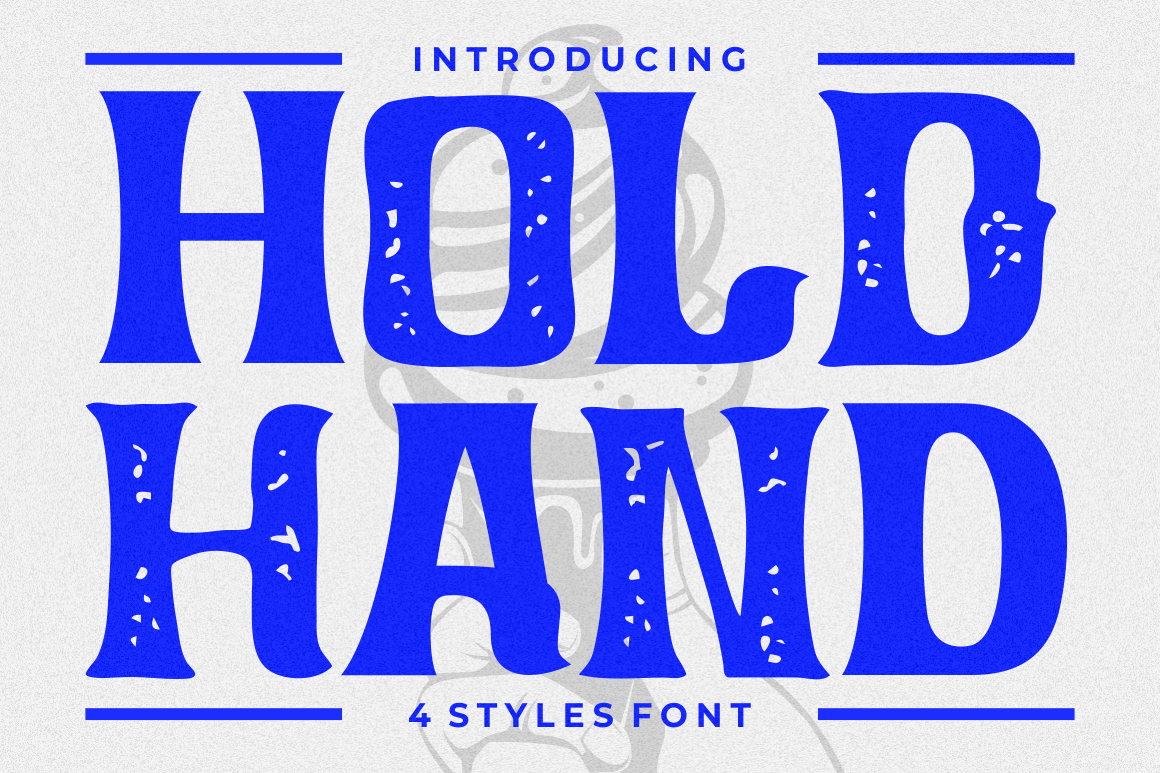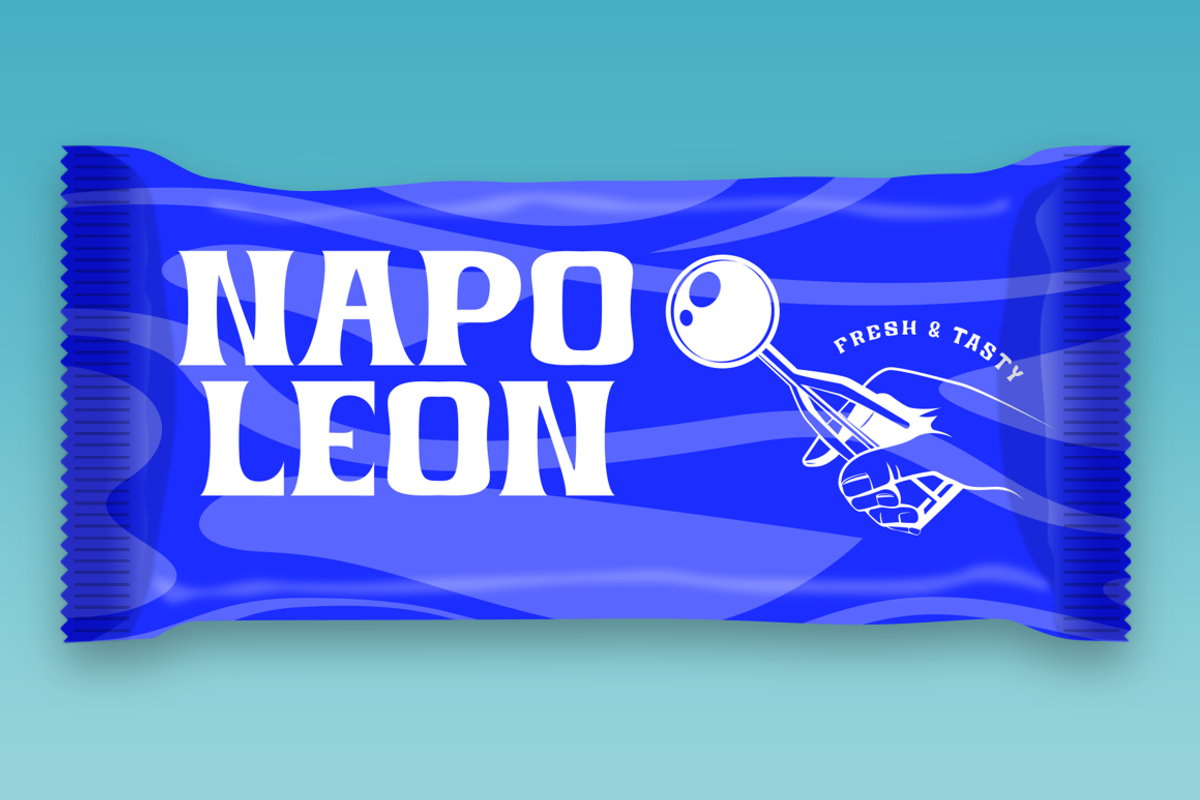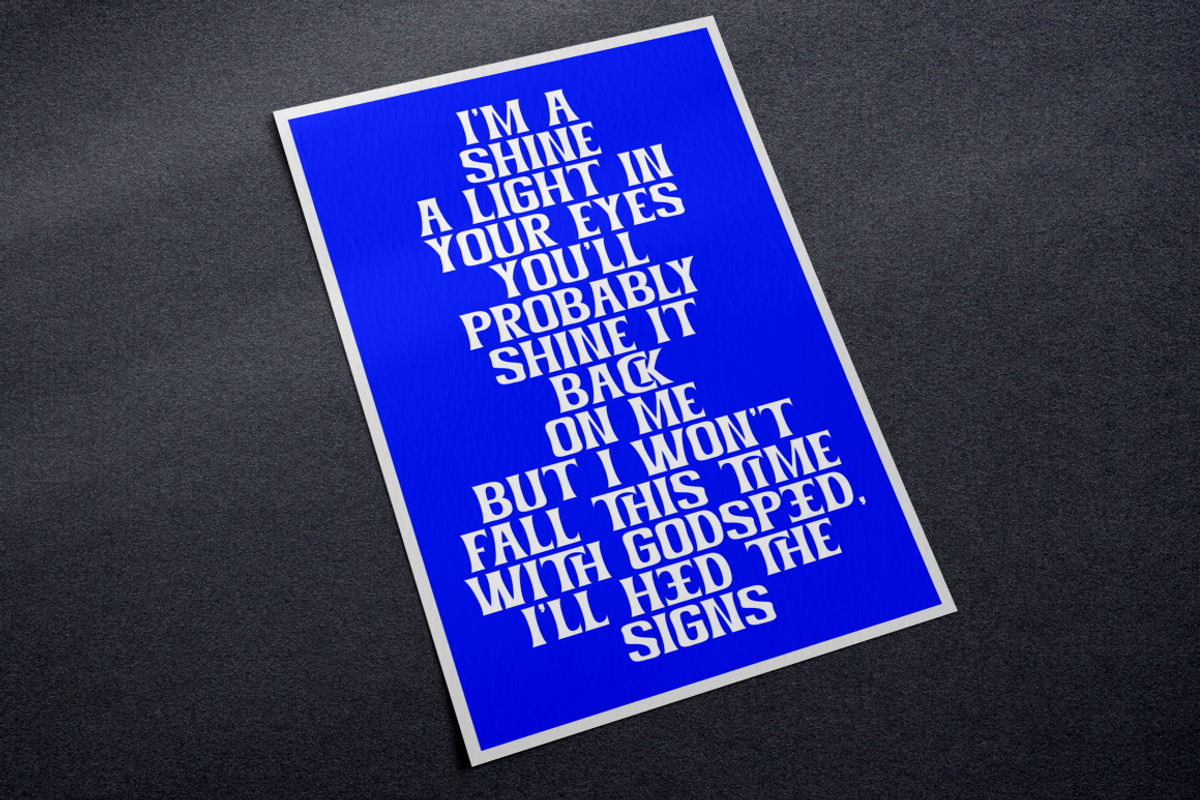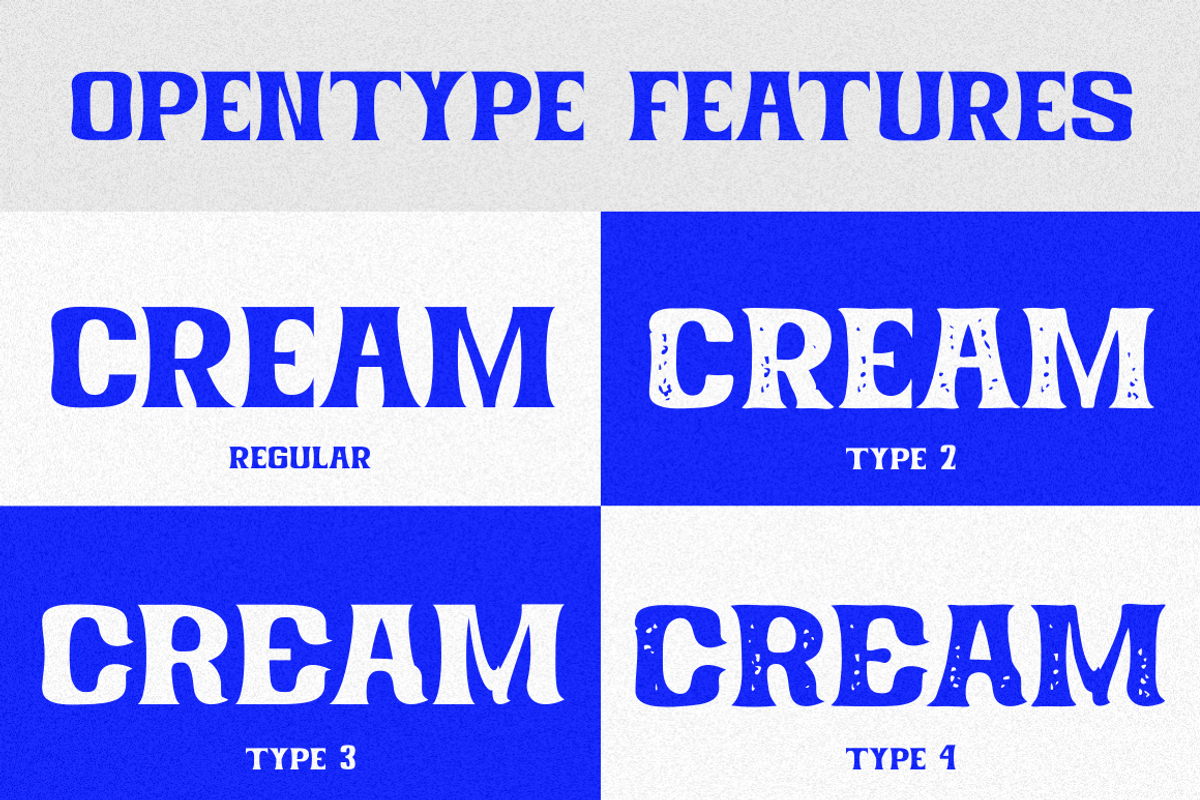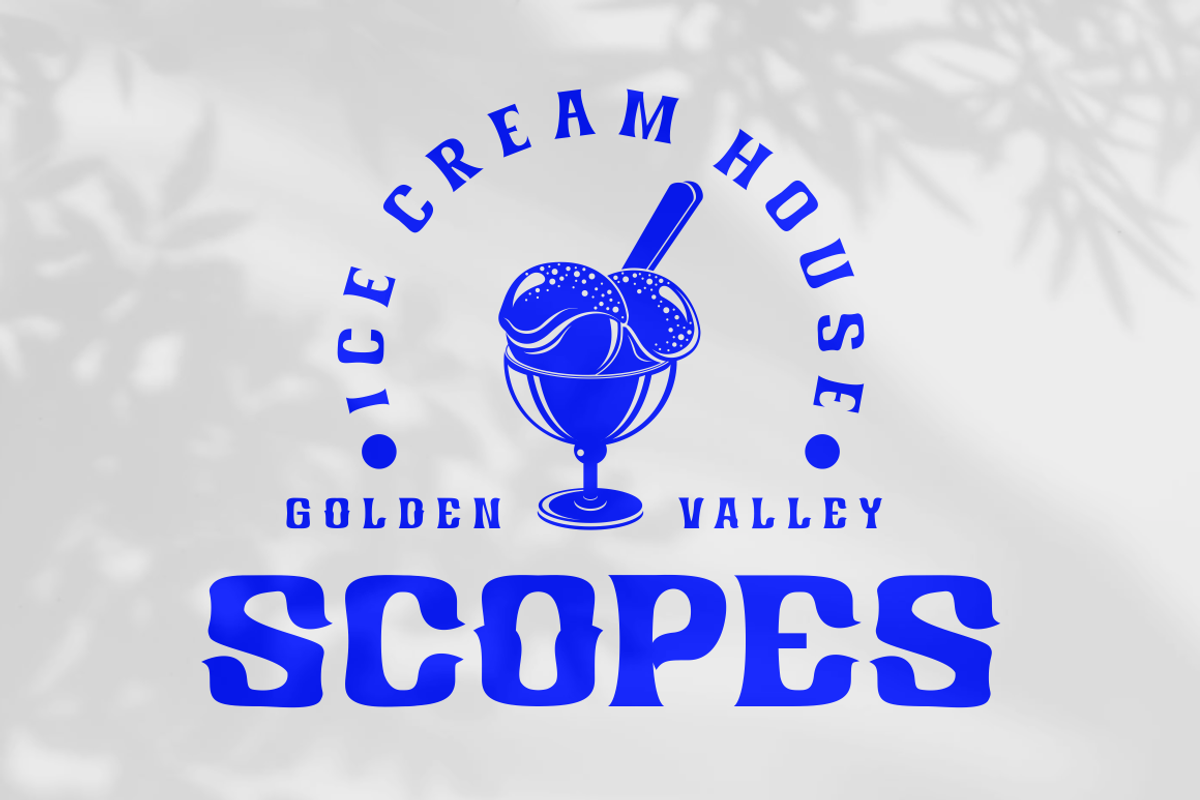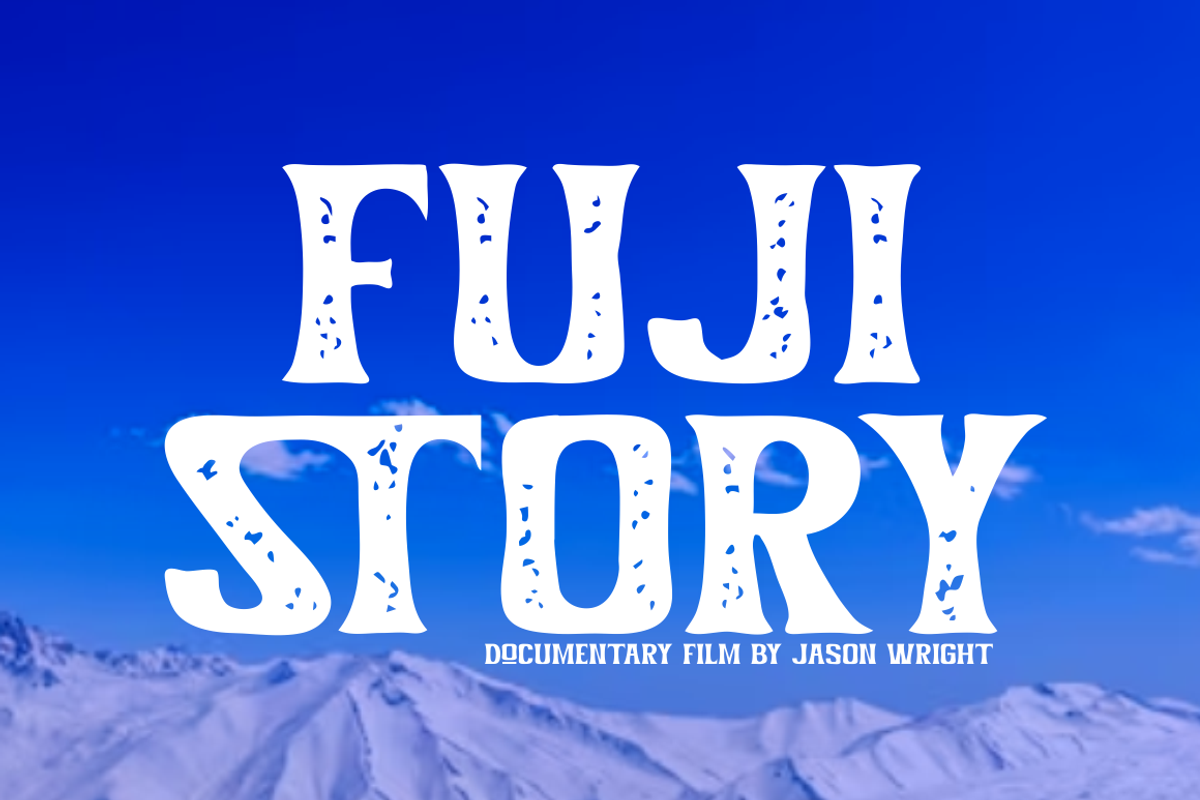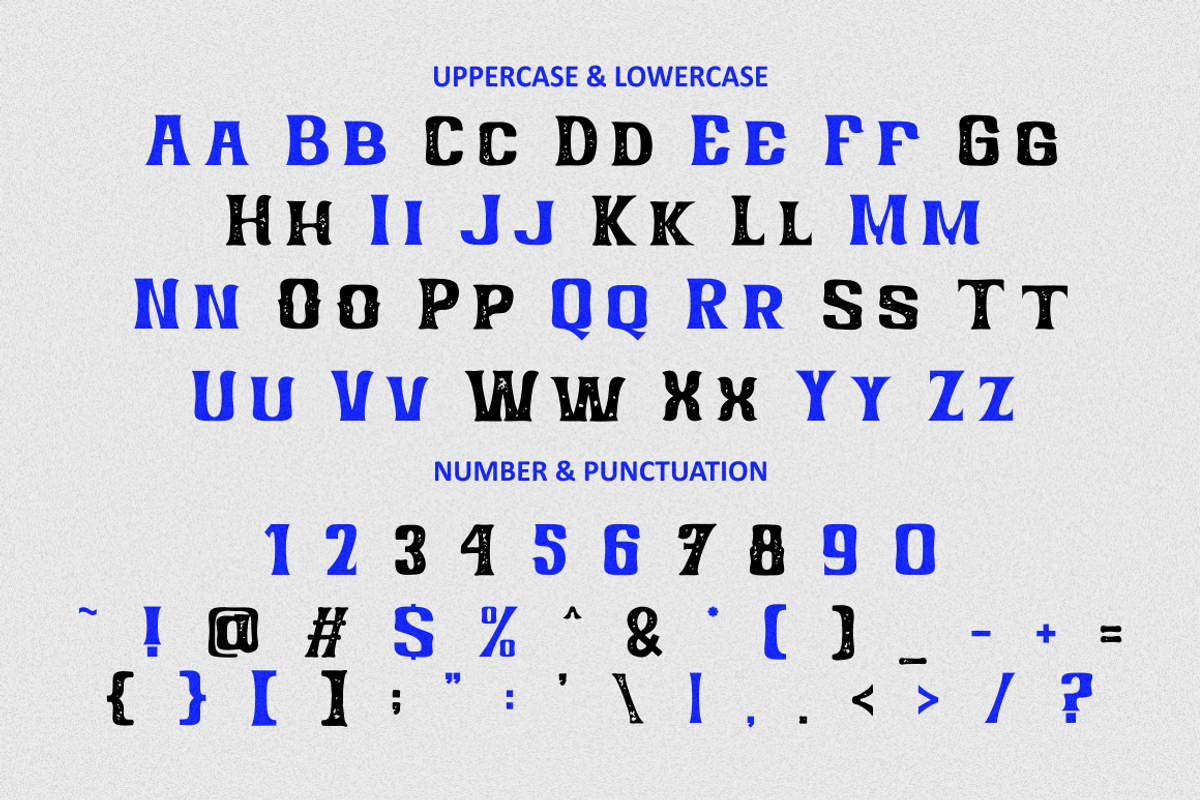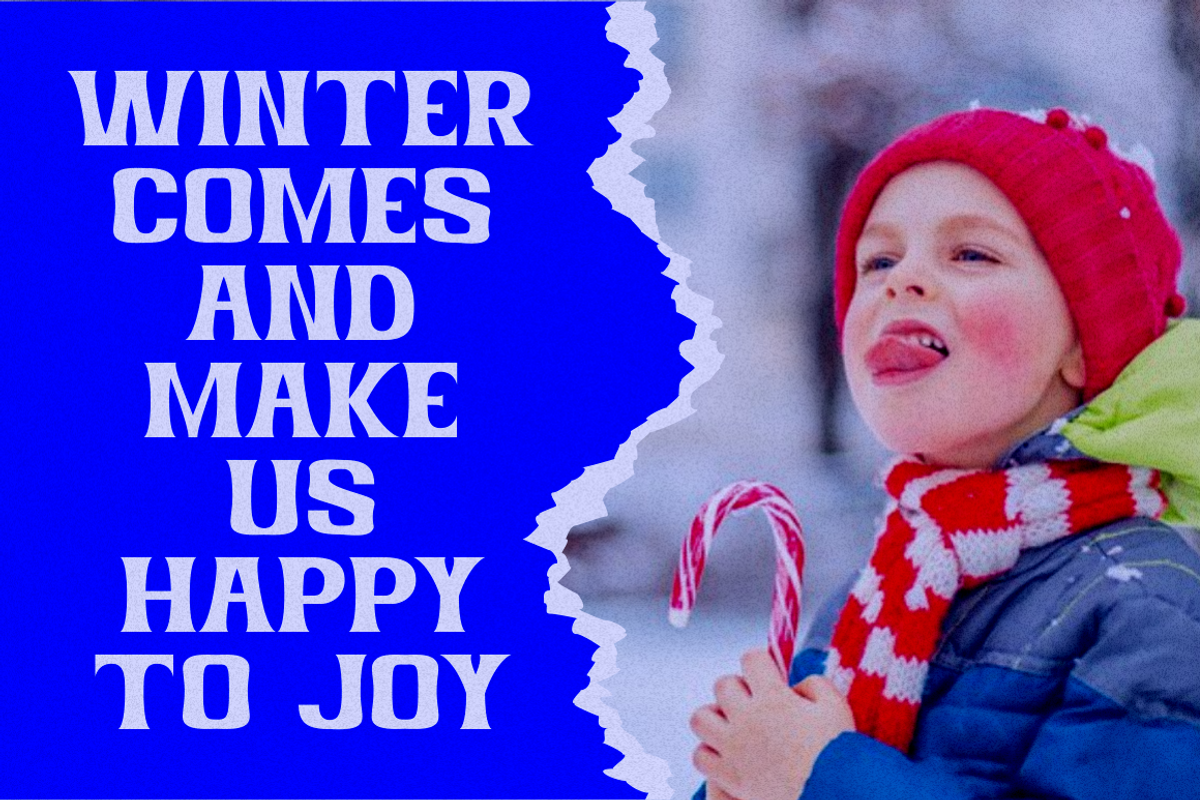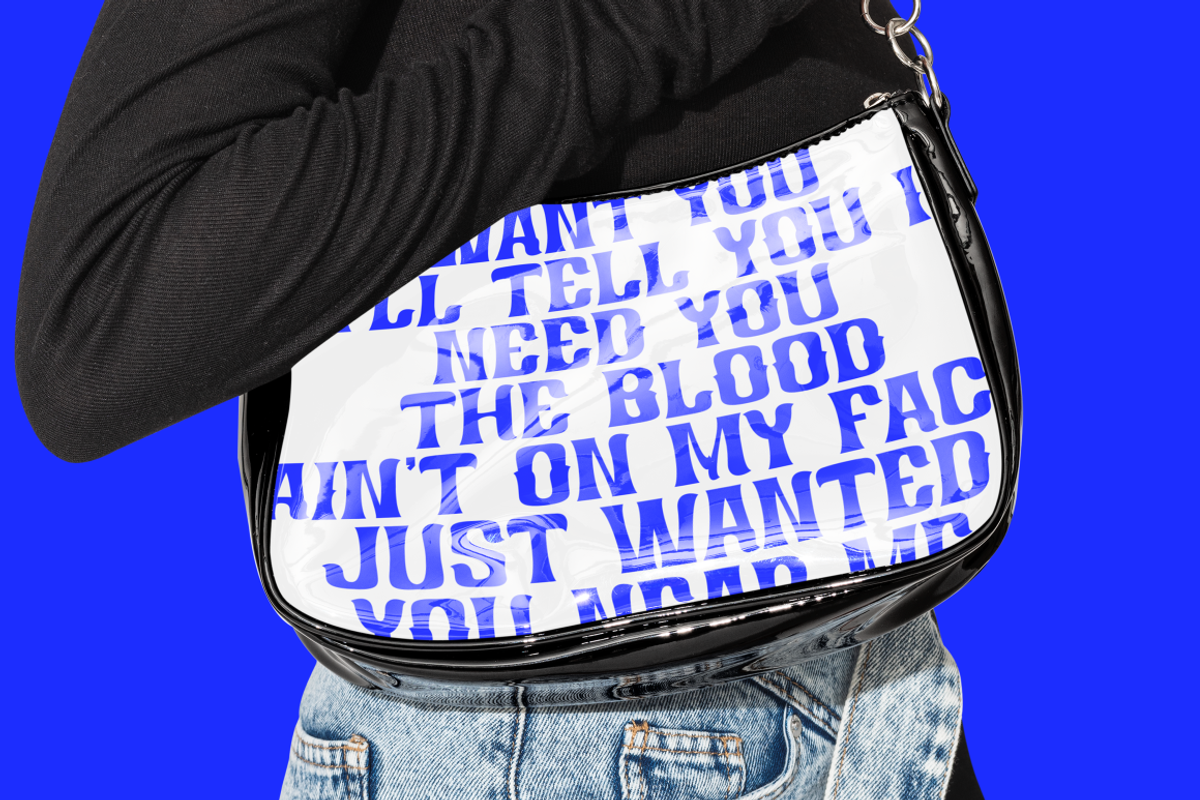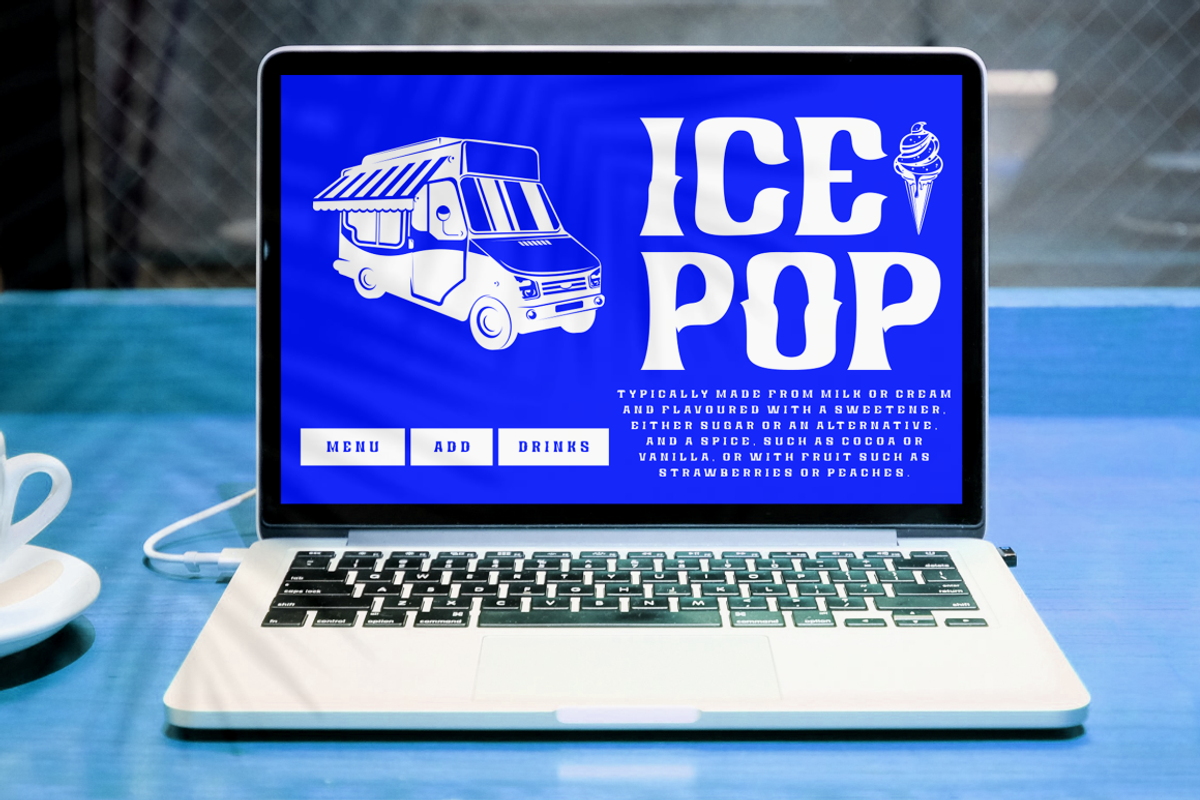
Hold Hand - Modern Display Font
Hold Hand - A Modern Display Font with Distinctive Charm
Hold Hand is an exceptional modern display font that captivates with its unique and original design. This font sets the stage for contemporary creativity, making your projects stand out with its distinct flair.
This font comes in two versatile versions, allowing you to choose between the regular and display styles. Additionally, both versions include a rough variant to add character and depth to your typography.
Hold Hand is the ideal choice for logo designs, branding, invitations, packaging, posters, titles, businesses, greeting cards, magazines, headlines, and various modern display-themed designs. Whether you're looking to make a bold statement or add a touch of modern elegance to your projects, this font has you covered.
Elevate your designs with the unique charm of Hold Hand, and watch your creative visions come to life.